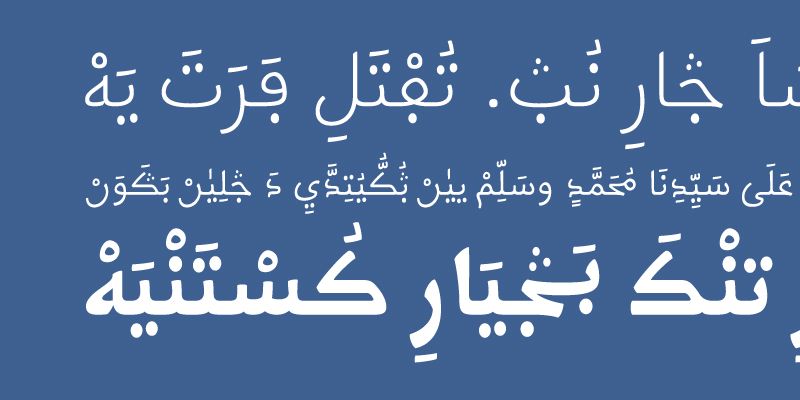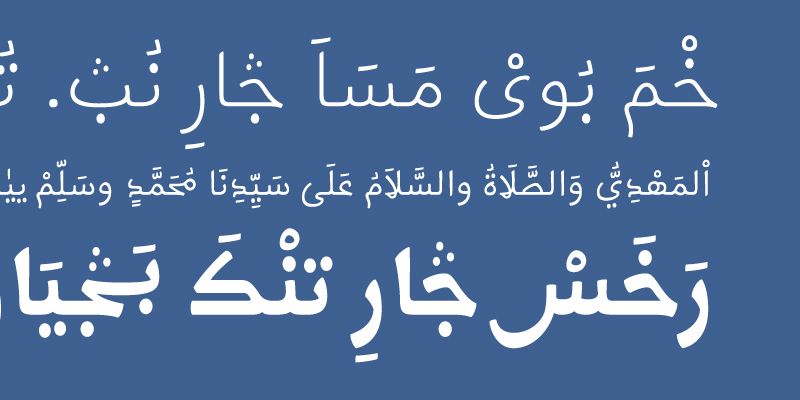
The design of Kigelia Arabic was inspired by the forms used in the Sahel in sub-Saharan Africa for writing a multitude of African languages. Stylistic sets are included which provide the user with access to numerous orthographic preferences in this vast geographical area.